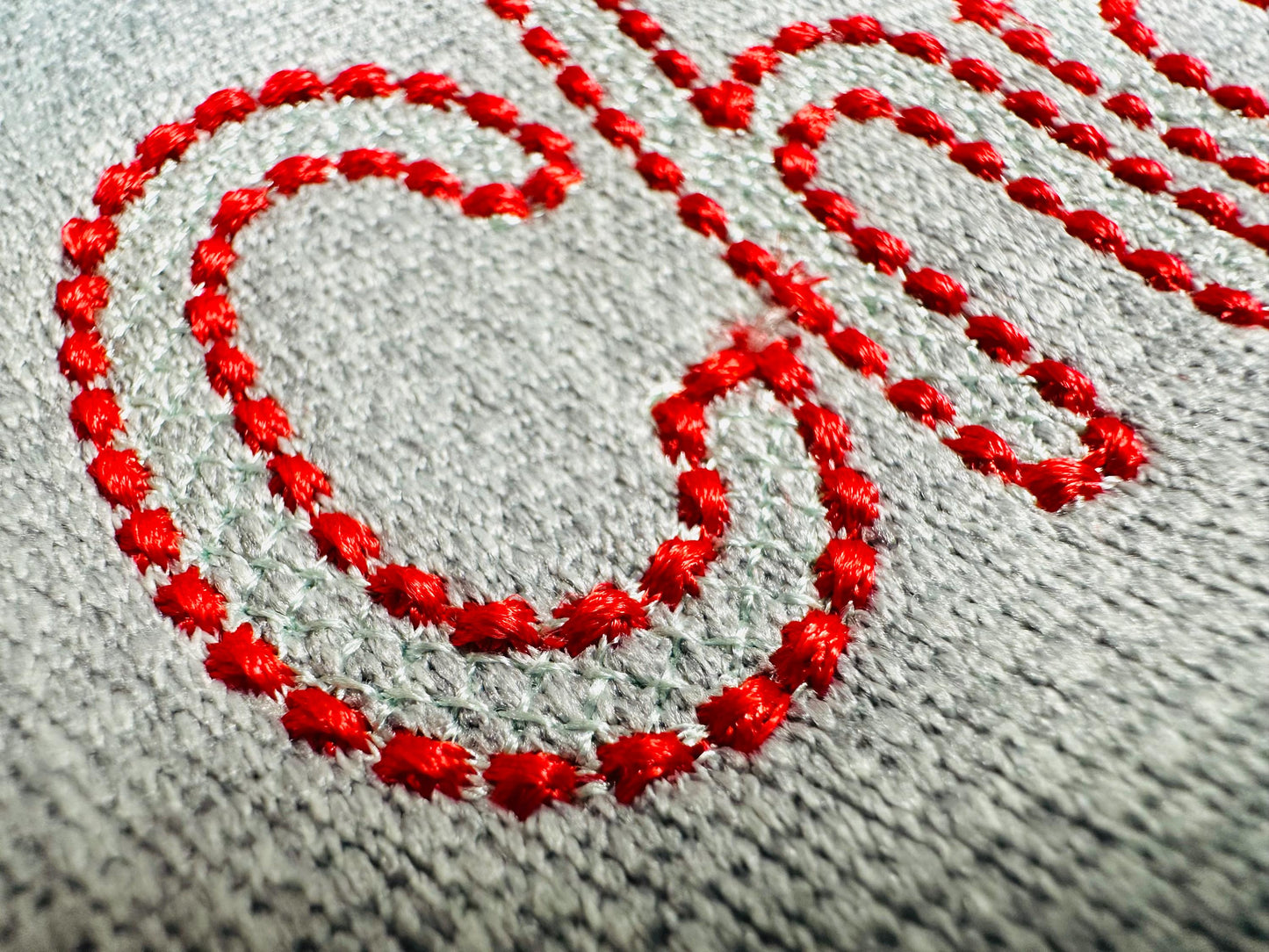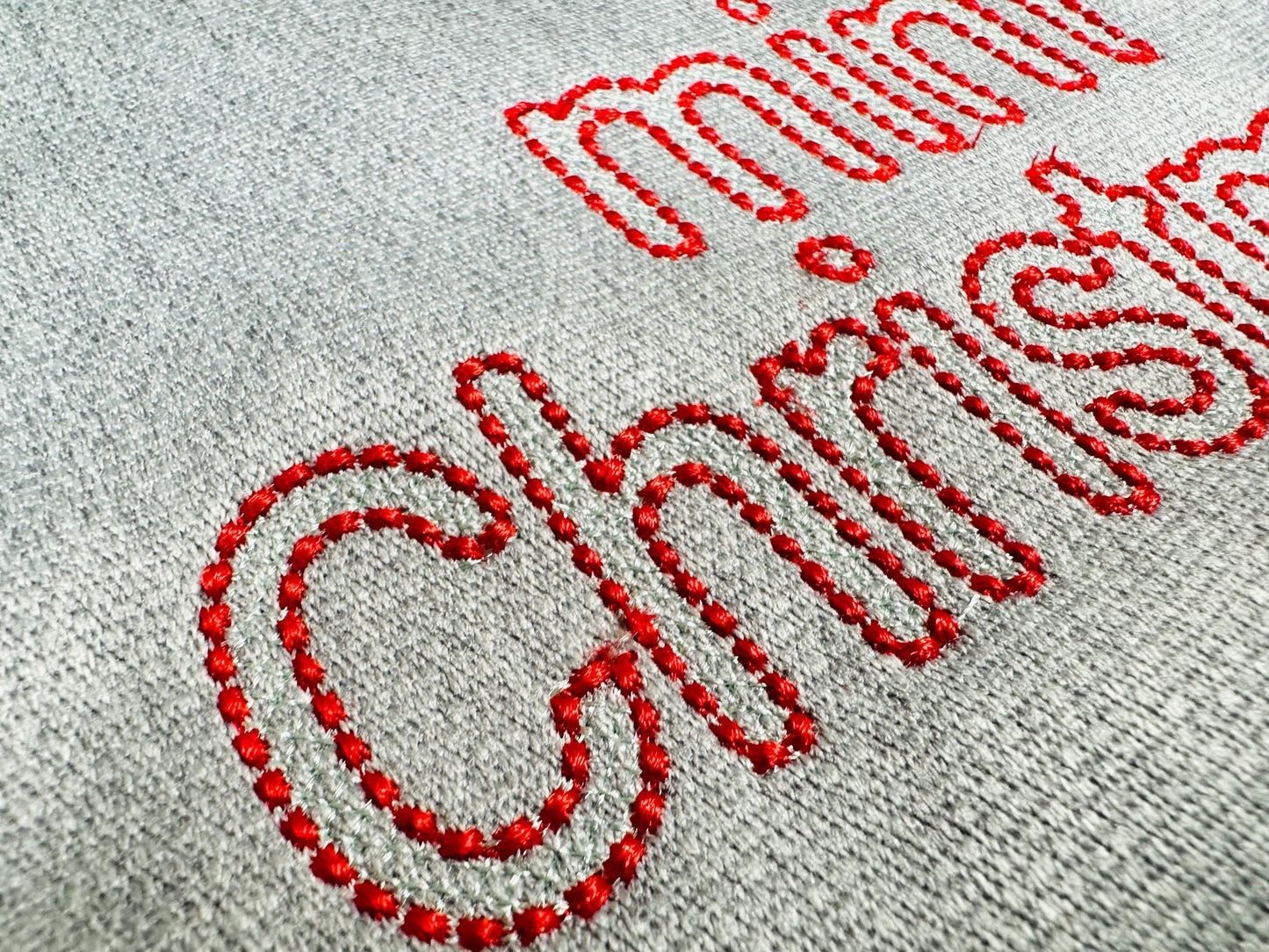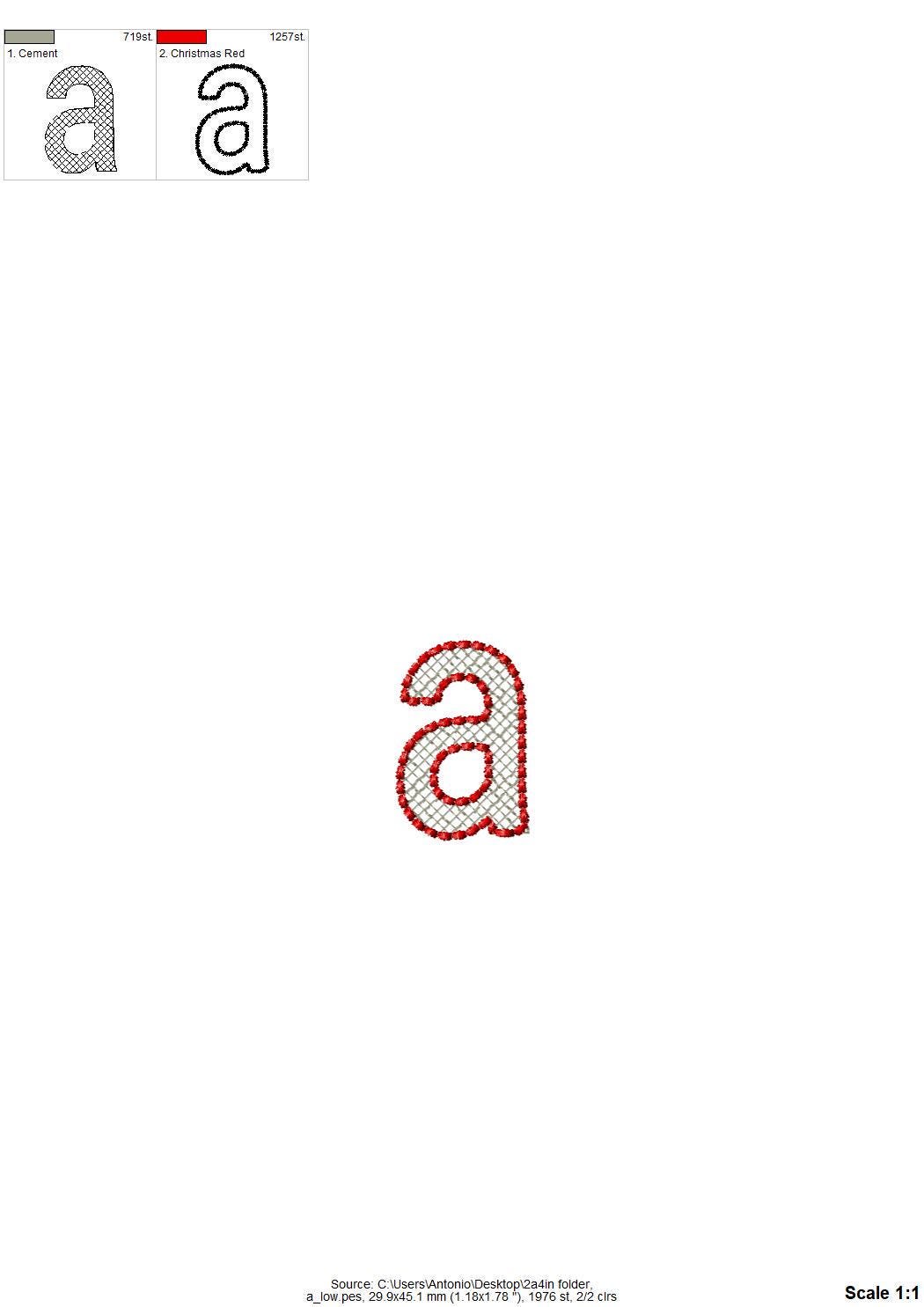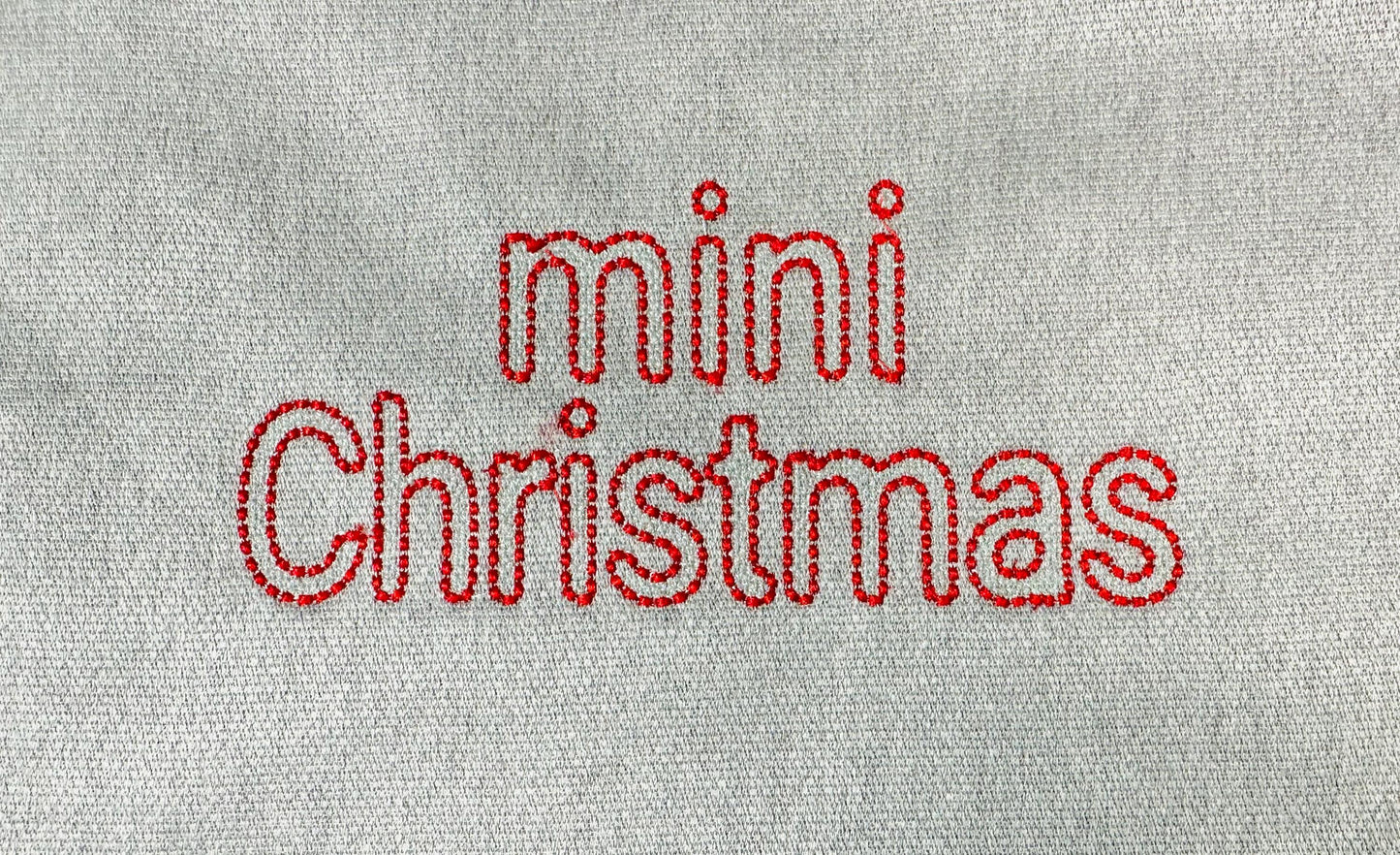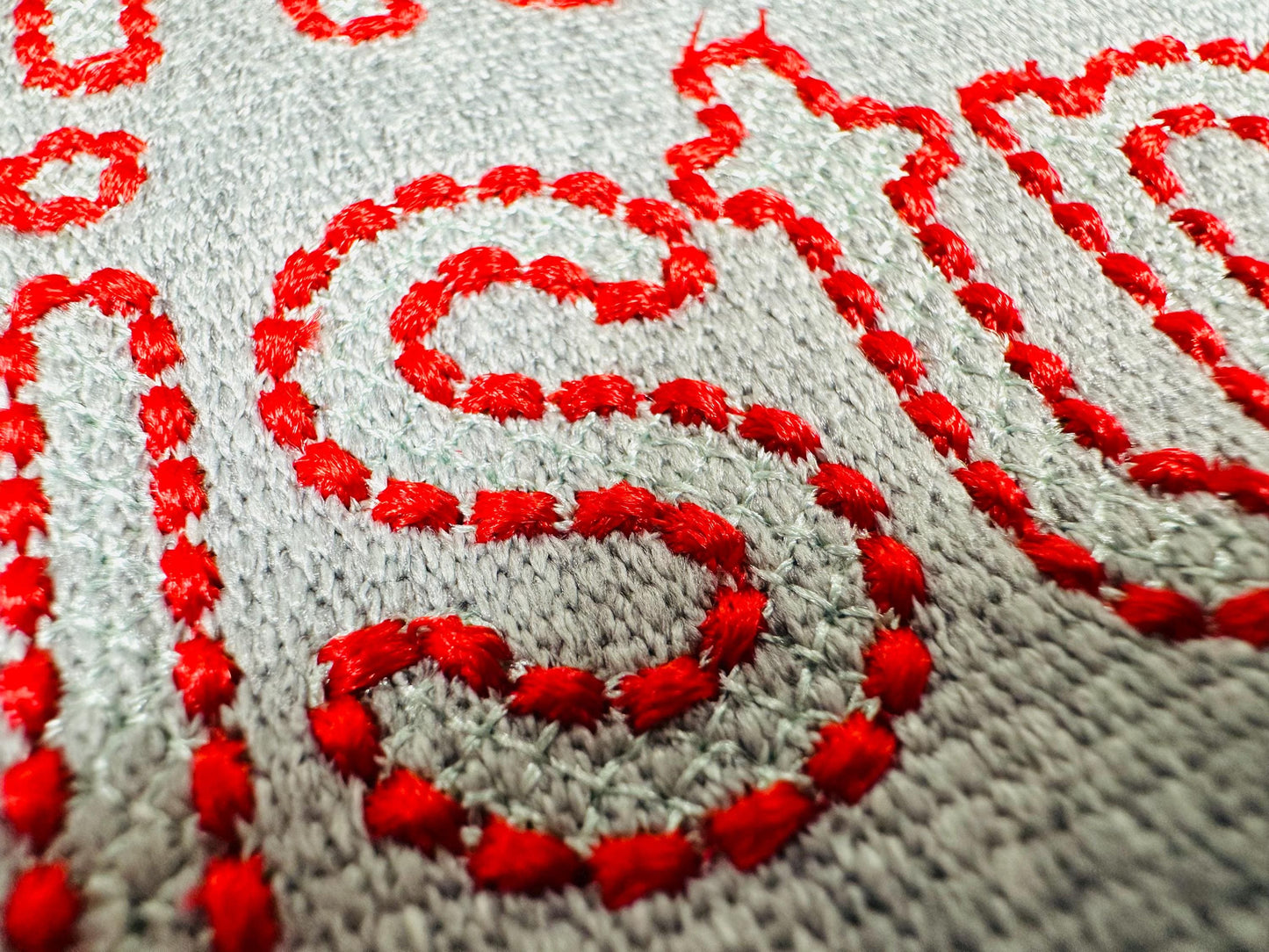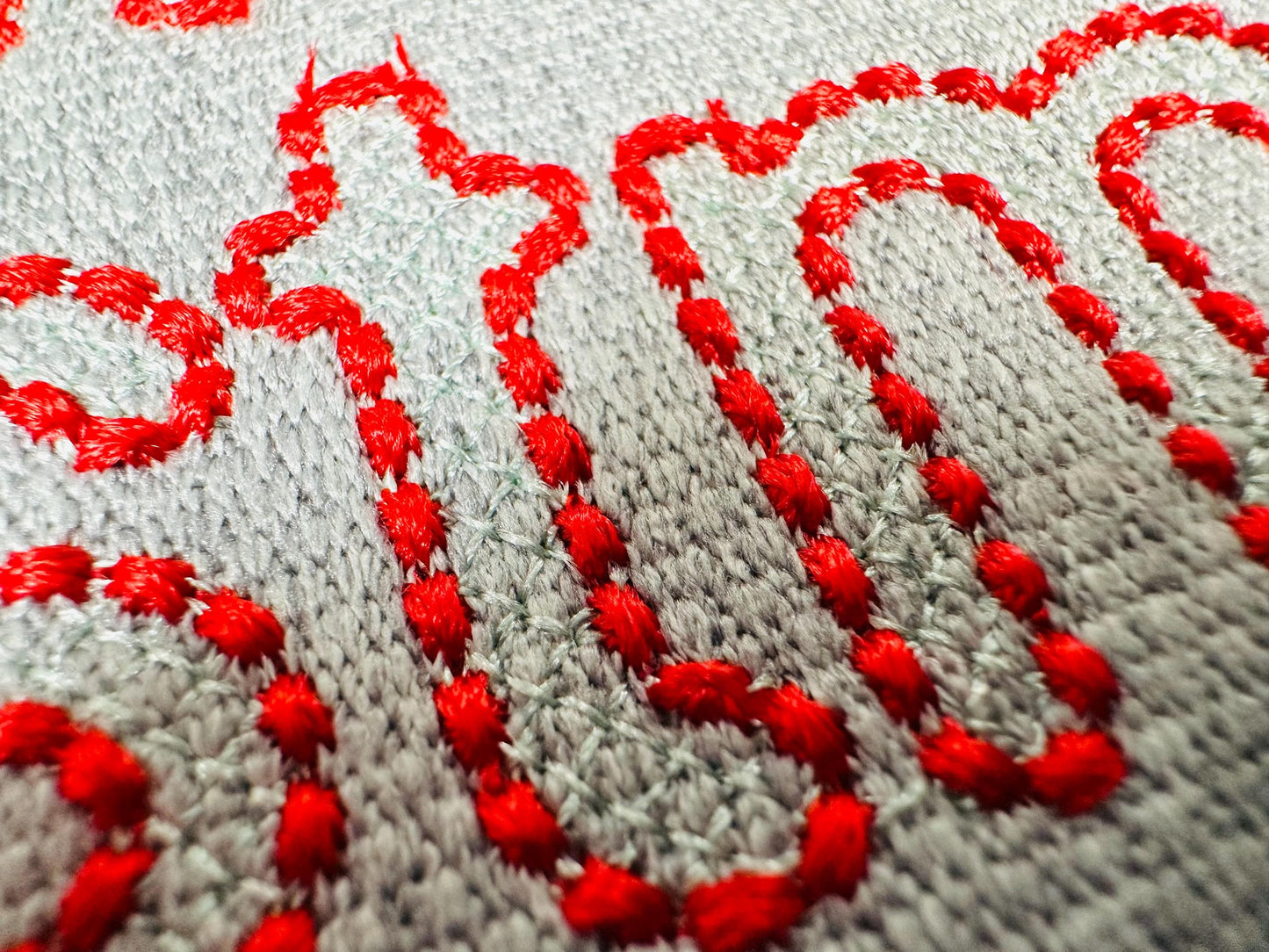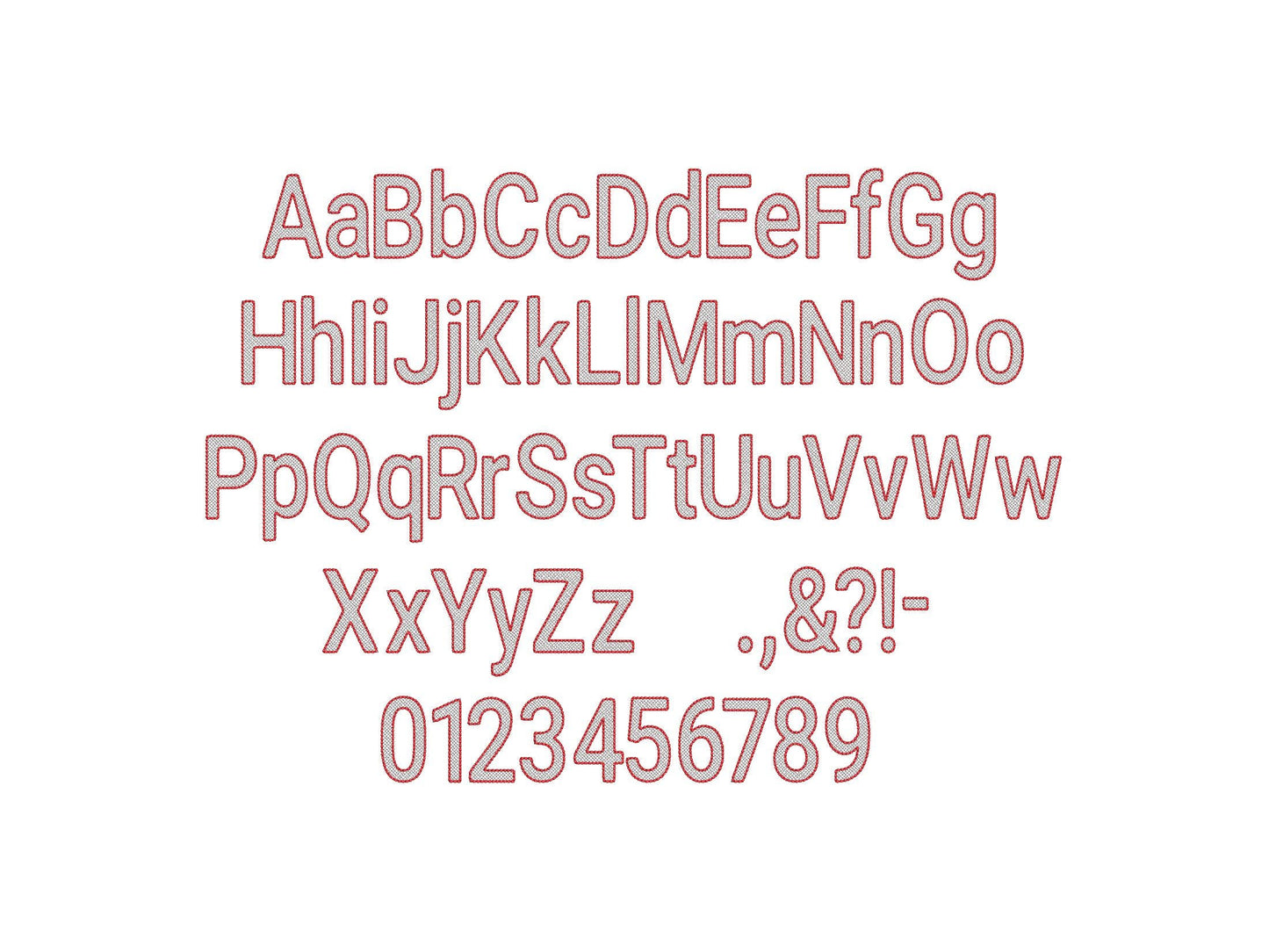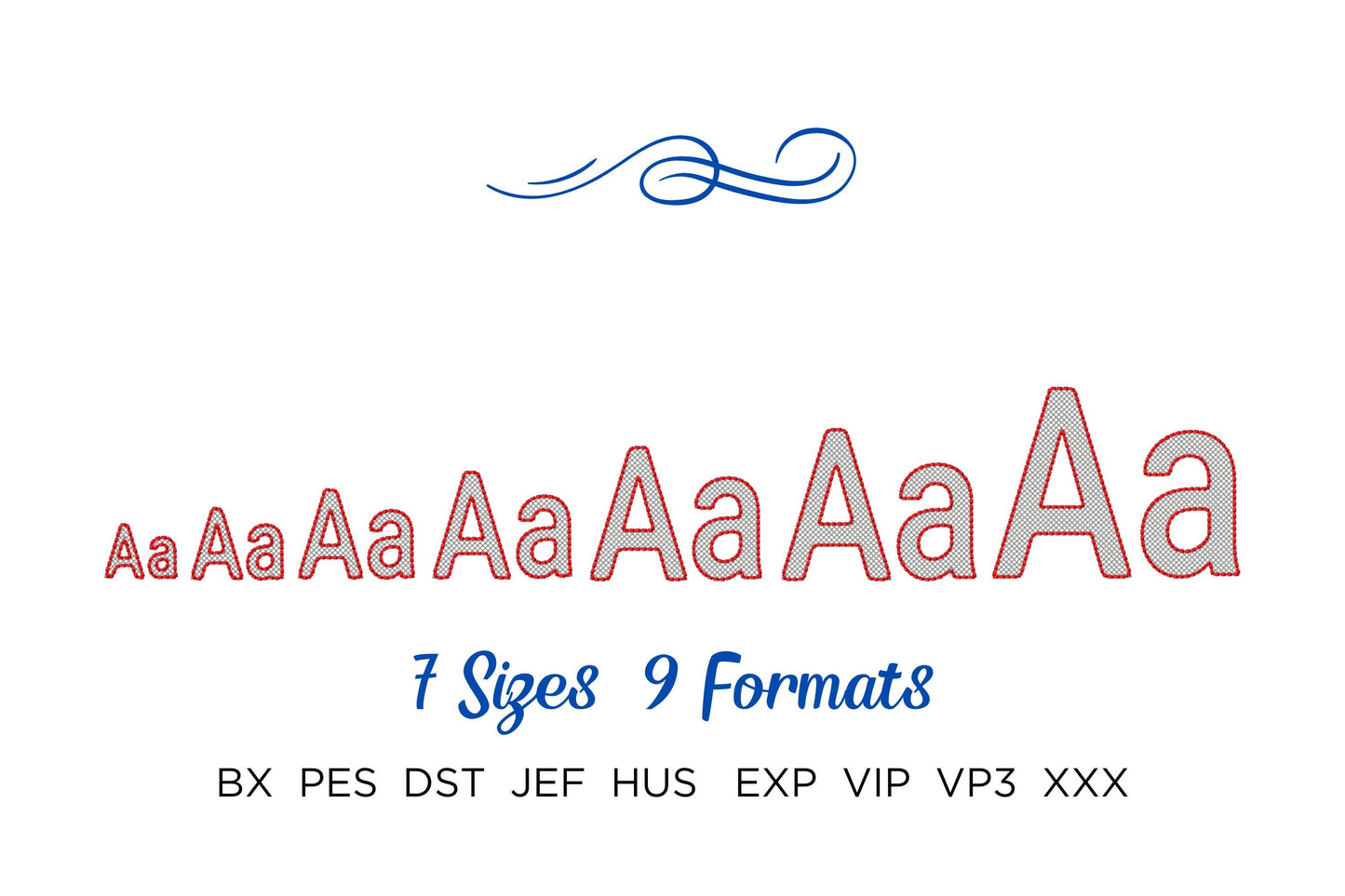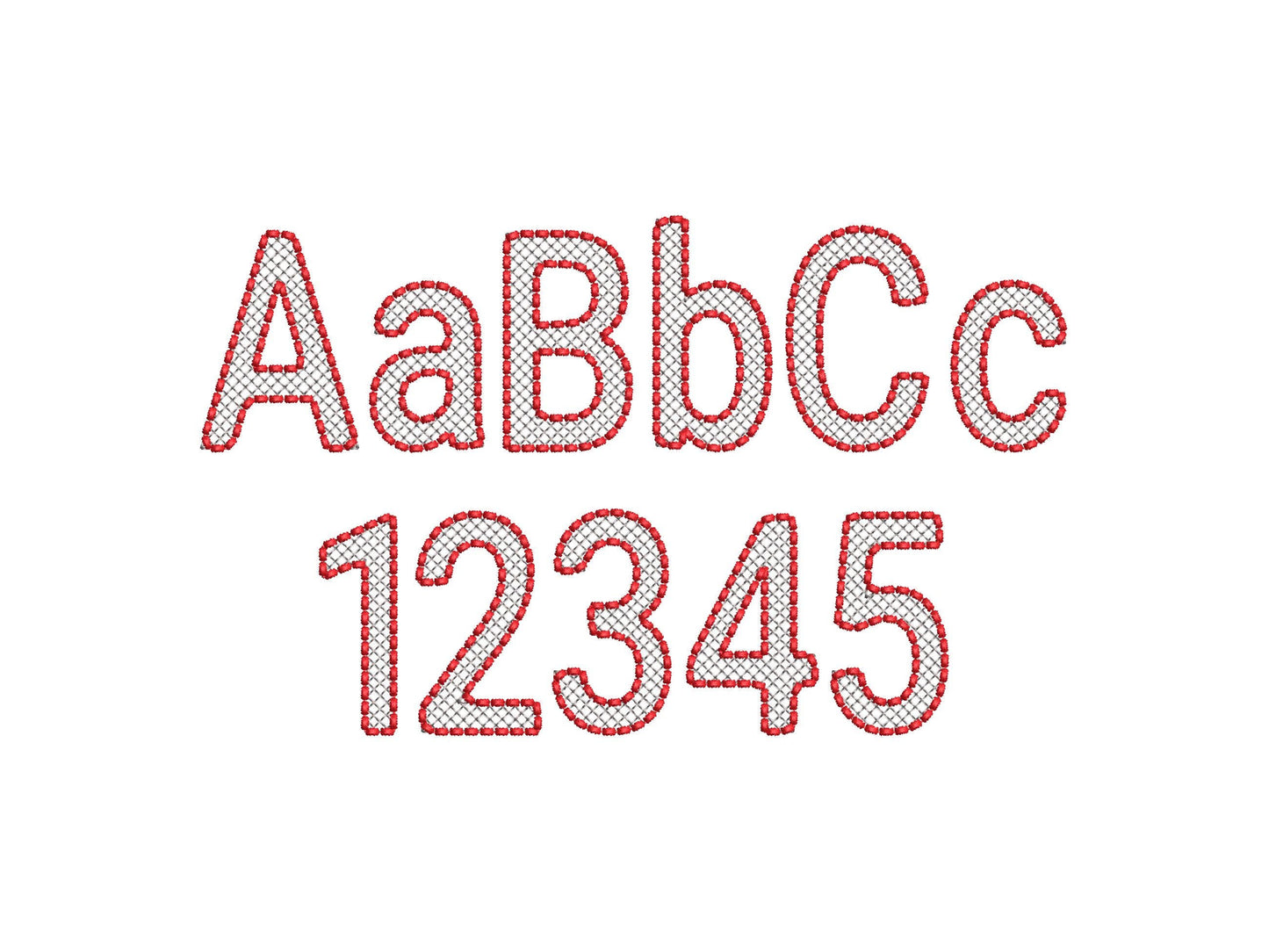
Puff Outline Baby Rounded Font
Or click to open the linkA rounded baby font in light stitch with a see-through crisscross fill and a puffy bean stitch outline, for baby gowns, bibs and blankets.
The puffy outline stands out slightly for a 3D look. Uppercase and lowercase letters, numbers and punctuation in seven sizes: 1.2, 1.6, 2, 2.4, 3, 3.5 and 4 inches.
- Rounded baby font with puffy outline
- Uppercase, lowercase, numbers 0-9, punctuation
- 7 sizes, 1.2 to 4 in